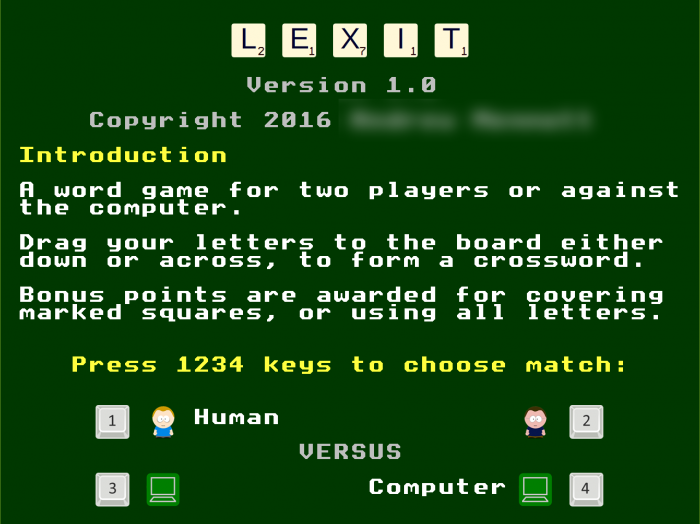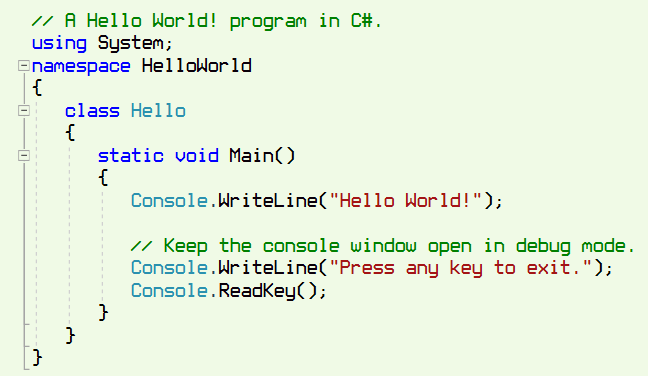
Acorn Full Nostalgia
by mez101010
A strong and rounded fixed-width font, aimed at single-font apps such as consoles and text editors. Good for programming and text interface design. Has more glyphs and complete Unicode subsets than most default monospaced fonts.
Intro screen for a retro game.
Source code sample.
I noticed the corner and inverted corner blocks are the wrong size, they should generally be the same size as the other block elements...
Also, Can you also add the rest of the greek?
Which OS & software are you using to view it, so I can reproduce the issue? Do you mean vertically? If I make the blocks smaller they do not seamlessly connect in Windows Notepad (see attached).
And I have added the missing 24 Greek capitals + some others. Or do you need the entire subset 0370-03FF?
@mez at least that it contains all the letters nedded to write greek...
What I mean is that the quadrant blocks should be scaled vertically until it matches the height of the full block (█)...
Also, the 5/8 right block should be moved a bit to the left until it touches the left guide...
5/8 left block*
For what it's worth, the Q and the slash O's seem out of place with the rest of the font.
I think the blocks are correct now, so thanks for that. I've also added the missing Greek capitals, but I'm not familiar with the Greek alphabet so let me know if there are any more that should be defined.
I know what you mean, but the style simply matches the original inspiration for the font, which is a blocky bitmap font with a very low resolution (8x8 pixels). Plus, if the zero didn't have a slash it would be exactly the same as the capital letter 'O' which would be ambiguous for programmers.
If you are thinking of the Teletext font on those 1980s machines (MODE 7) you should try searching for the quality "Bedstead" font online, or the "Mallard" font on this site.
@mez There are the capital greek vowels with tonos, the lowercase iota with tonos and umlat that need to be added as well... As well as the greek question mark just in case... And you can add the accented greek letters in the Greek Extended block if needed...
I spotted a missing brick on the superscript 3 (highlighted in red/orange)
OK, thanks, I've fixed that and added the whole 'Greek/Coptic' subset for 0370-03FF.
Completed 'Cyrillic' and 'Latin Extended Additions' subsets.
Completed several minor subsets.
Completed 'Mathematical Operators' and 'Miscellaneous Technical' subsets.
Completed 'Yijing Hexagram Symbols' subset, and added an Acorn symbol at 0xFFEE.